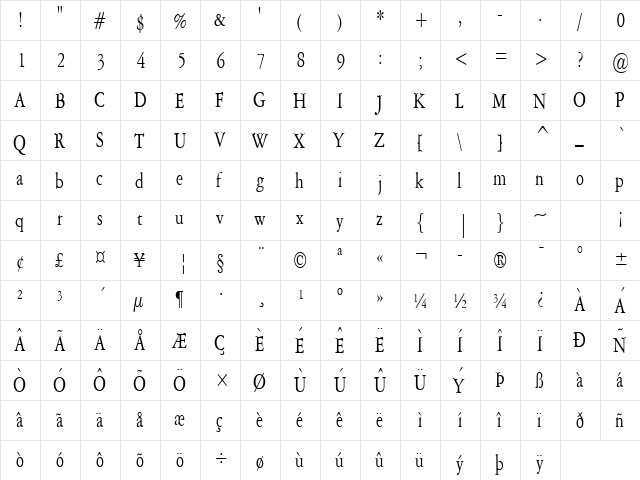
Amery Condensed Normal
Design Context for Amery Condensed Typeface
Amery Condensed takes a measured approach to typography — its balanced proportions and neutral character make it a reliable workhorse for both digital and print work. The condensed width makes it efficient for tight spaces without sacrificing legibility.